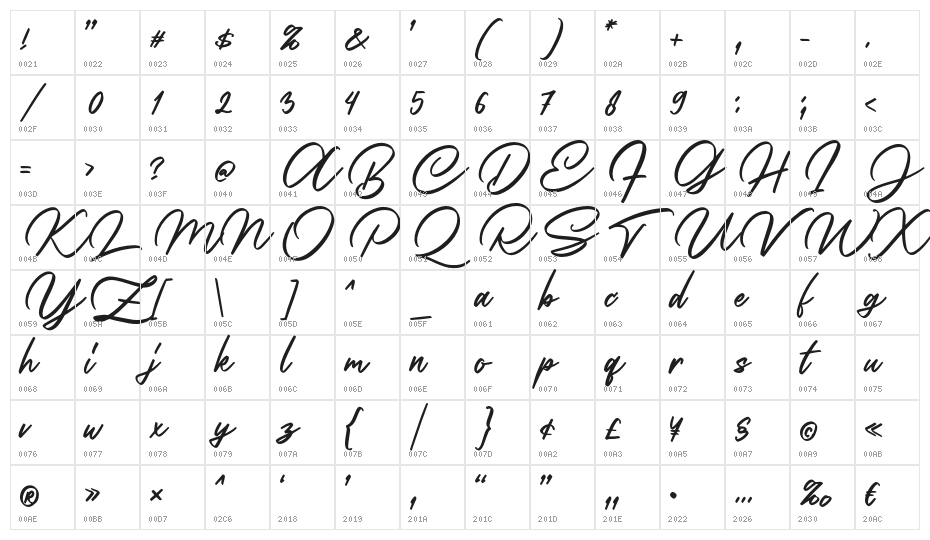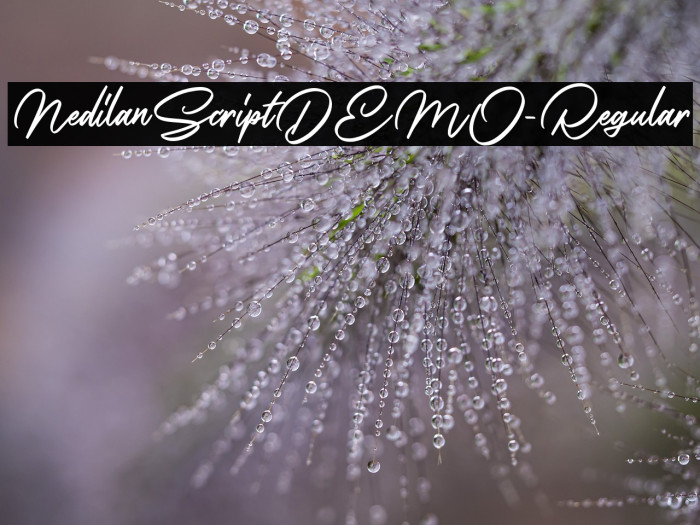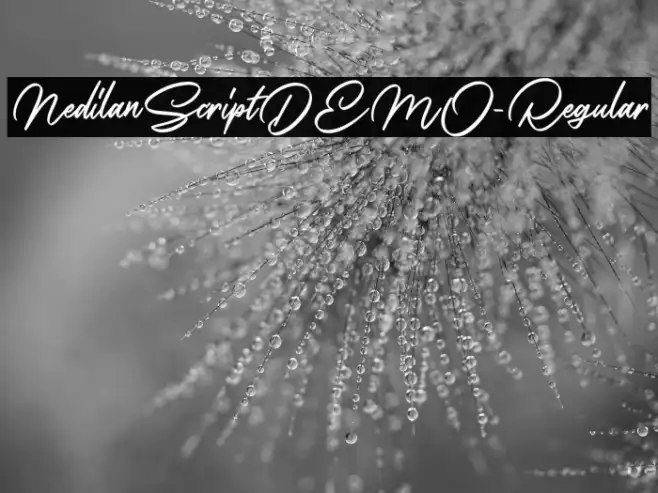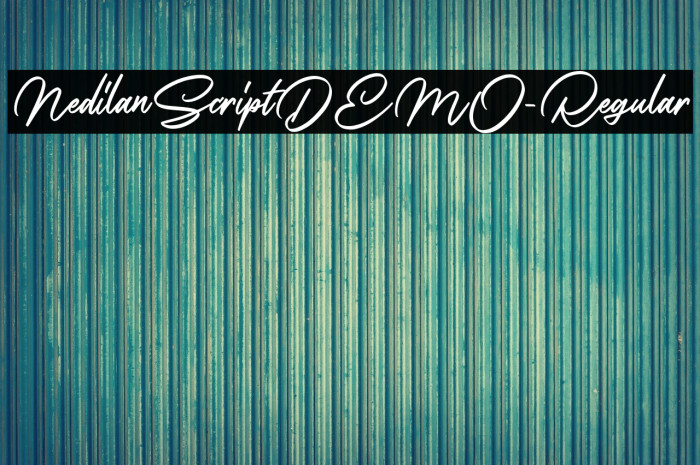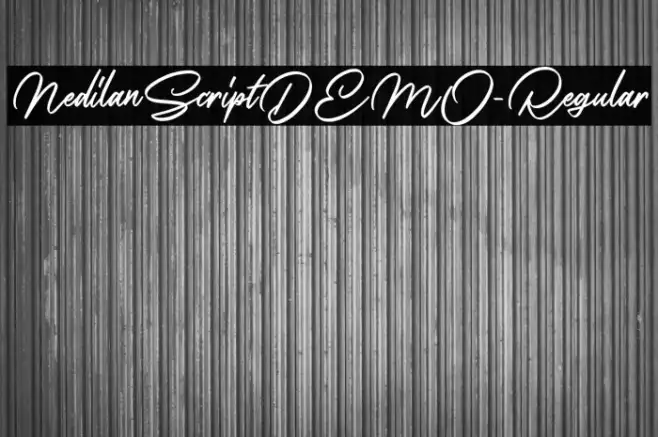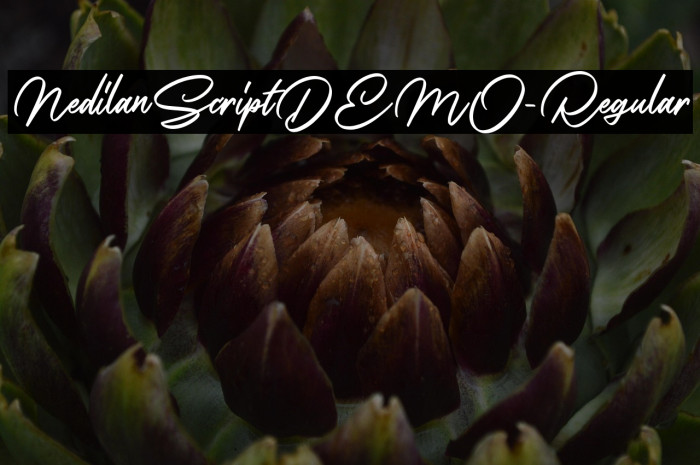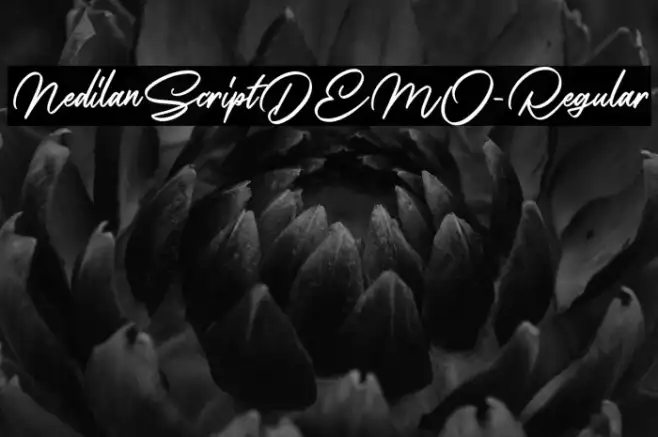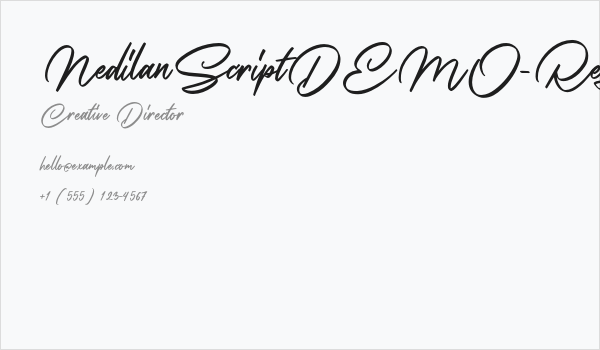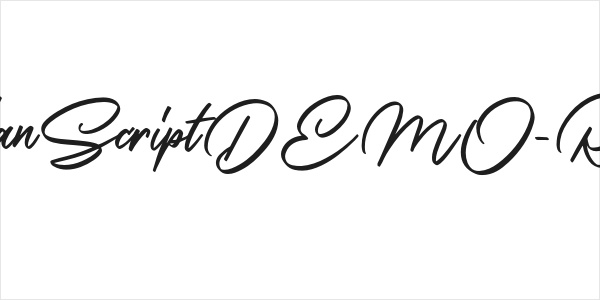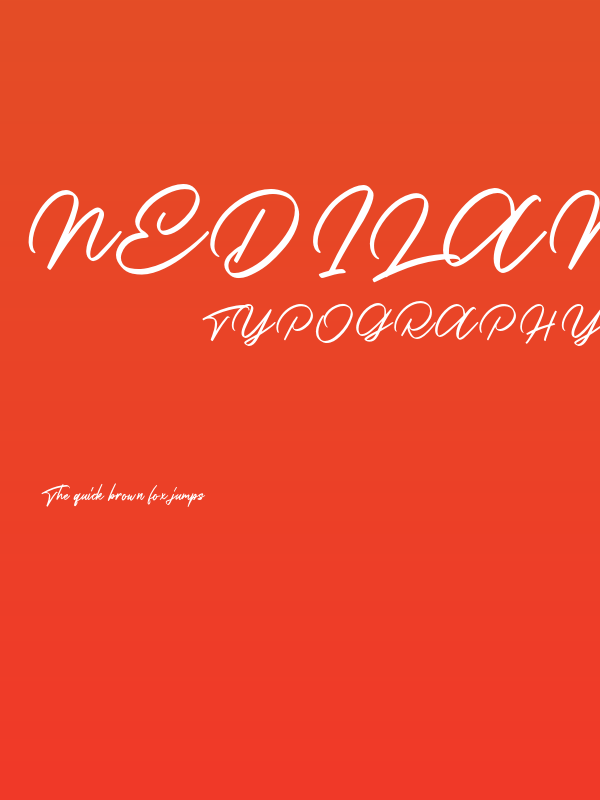
NedilanScriptDEMO-Regular Font
NedilanScriptDEMO-Regular Description
This font is a dynamic and expressive script typeface with a flowing, handwritten style. The uppercase letters are elegant and slightly slanted, giving a sense of movement and grace. The lowercase characters are bold and connected, creating a seamless and fluid appearance. The numerals are consistent with the overall style, maintaining the same bold and flowing characteristics. Special characters are well-integrated, adding versatility to the font. The strokes are smooth and rounded, contributing to a friendly and approachable look.
| Proposed Projects | Ideal for branding, invitations, greeting cards, and creative projects that require a personal touch. |